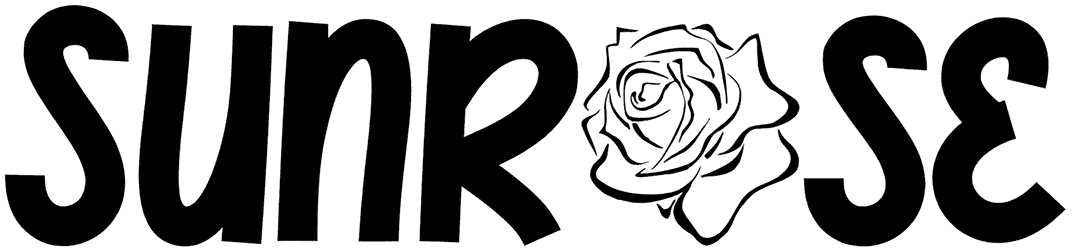
Sunrose Font
Sunrose is a chic and whimsical decorative font that has the real potential to add an artistic spark to any creative design including street posters, digital banners, the user interface of applications, and product packaging. If you have a problem engaging the audience with your content, this fancy font can help you by bringing a sense of disorder, drama, softness, and delicacy to the artwork.